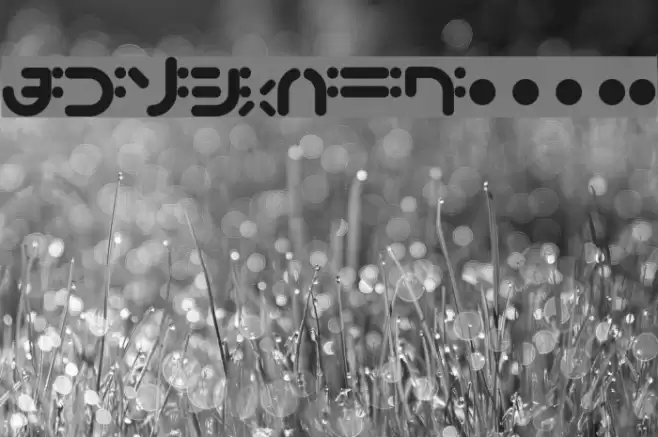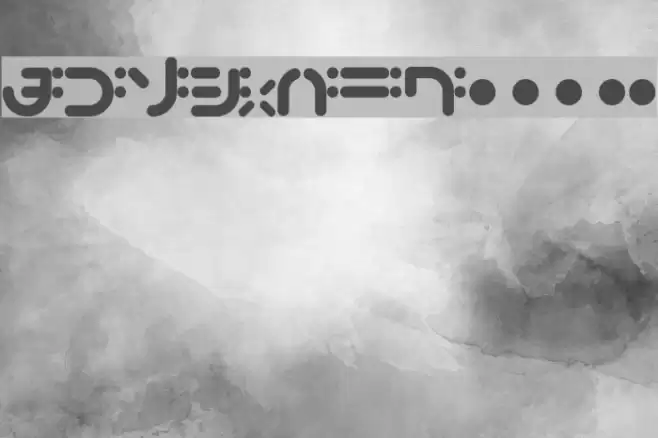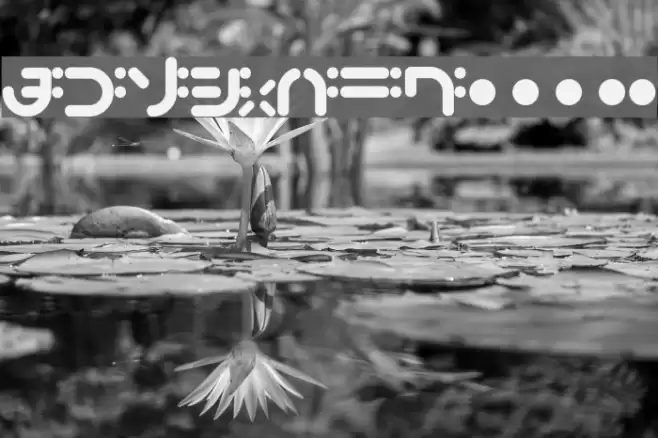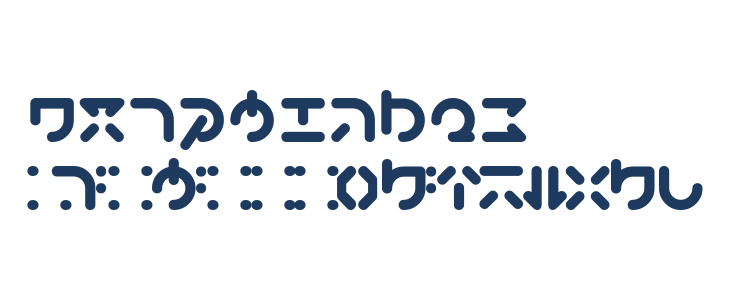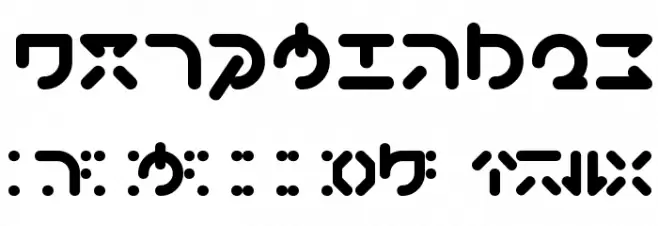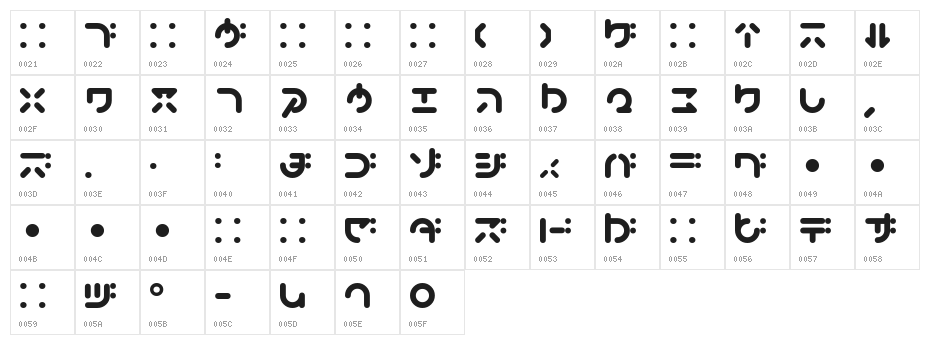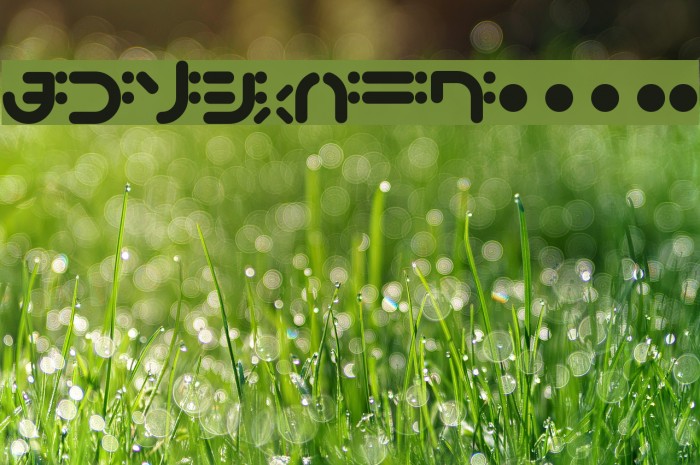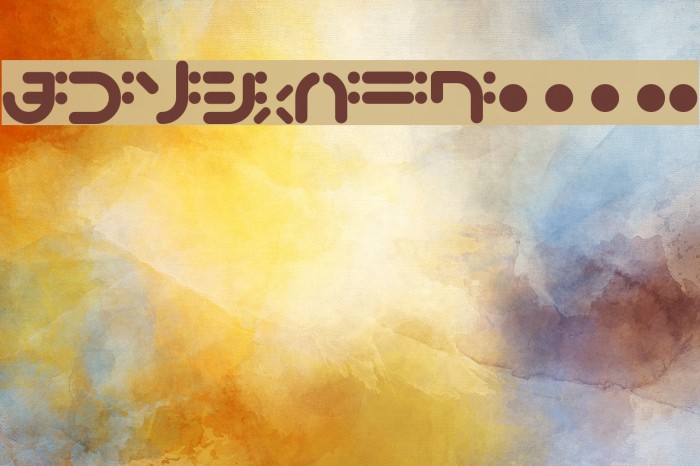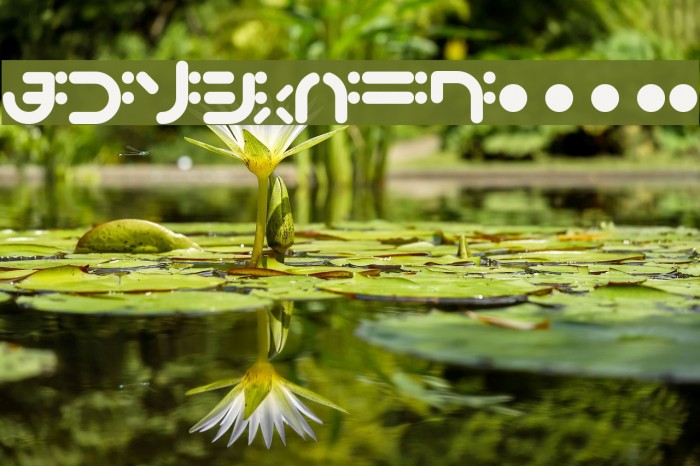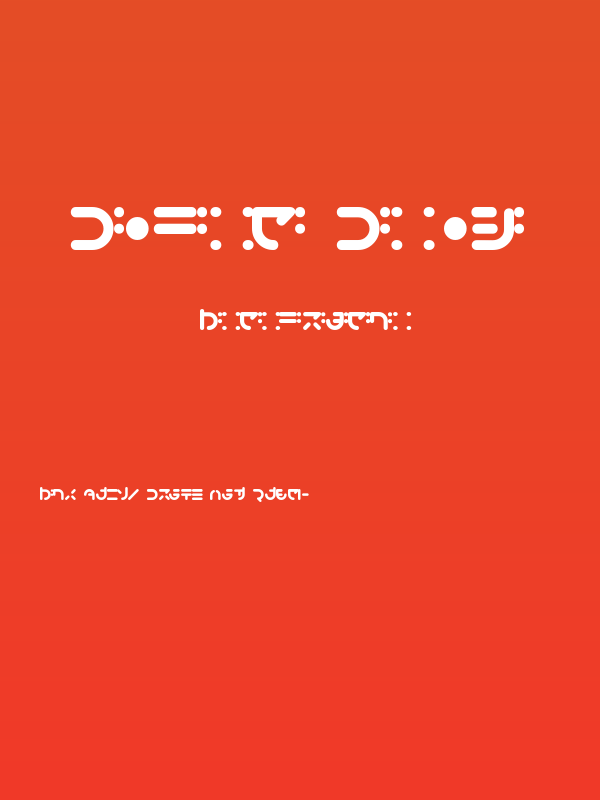
bigup Bold Font
bigup Bold Description
This font features a highly stylized and futuristic design, characterized by its bold, rounded forms and unique geometric shapes. The characters are constructed with a combination of solid and dotted lines, giving it a distinct, almost digital appearance. The font is visually striking, with a playful yet modern aesthetic that makes it stand out. Its unconventional structure and bold presence make it suitable for creative and innovative design projects.
A bold, futuristic font with rounded, geometric shapes and a digital aesthetic from Uncategorized fonts.
- Proposed Projects: Ideal for sci-fi themed designs, video game graphics, tech branding, and modern art projects.
- Overall Style: Futuristic, Modern